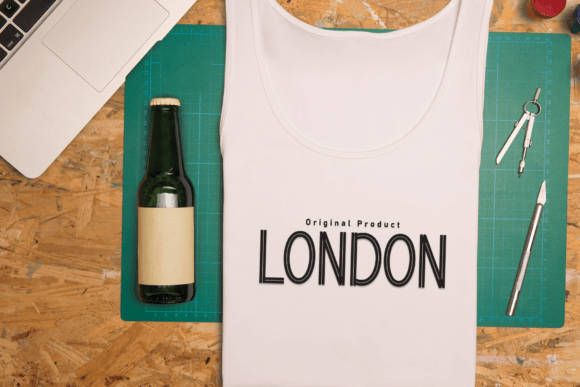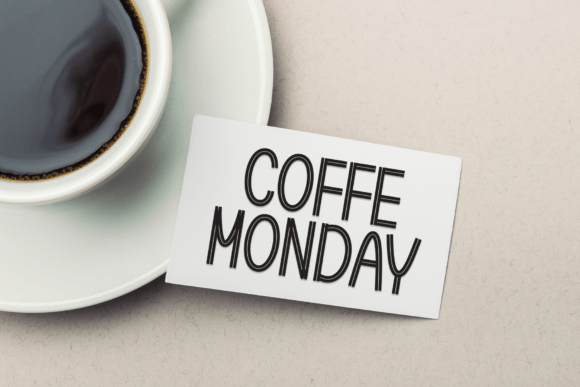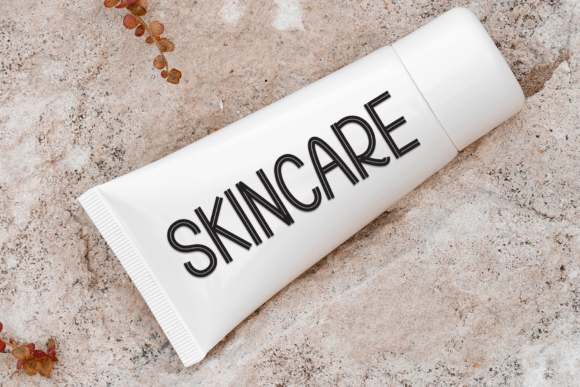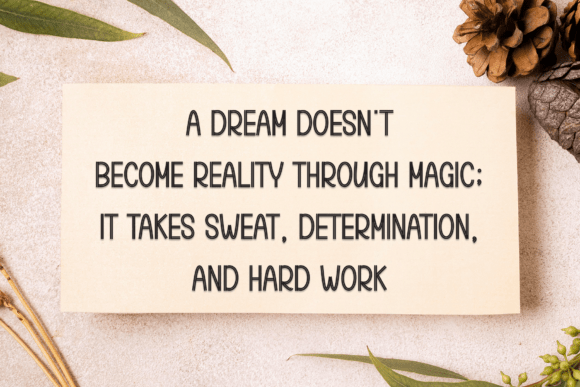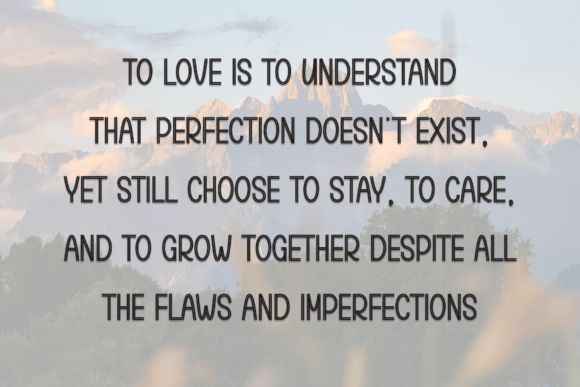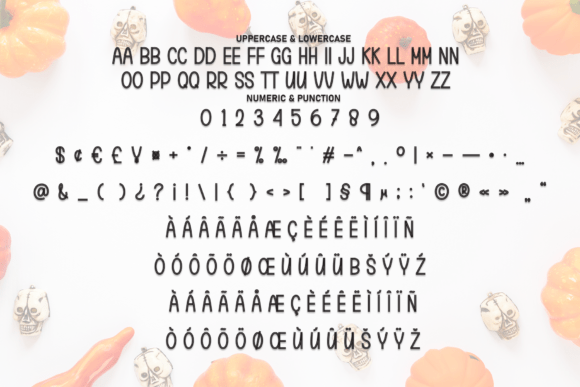
Introduction to Pumpkin Ornaments Font
Pumpkin Ornaments is a sleek and technical display font that offers a minimalist, contemporary take on seasonal typography.
Labeled as a typeface creative style font , it features exceptionally tall and narrow letterforms rendered with a distinctive โtriple-lineโ monolinear stroke weight This internal linework provides a sense of customized texture and architectural depth while maintaining a clean, organized visual rhythm.
Key Features of Pumpkin Ornaments Font